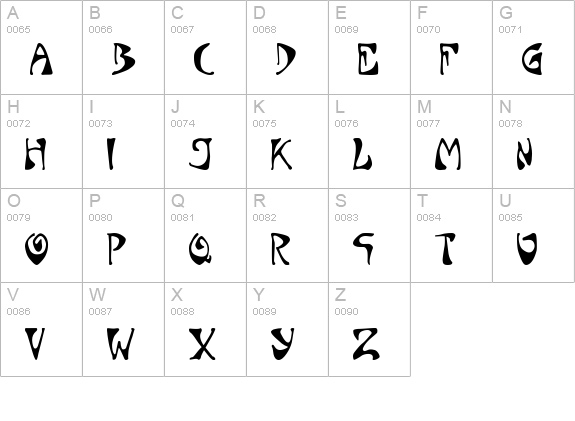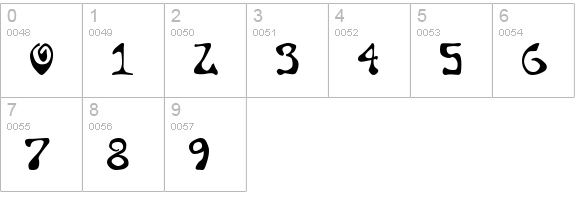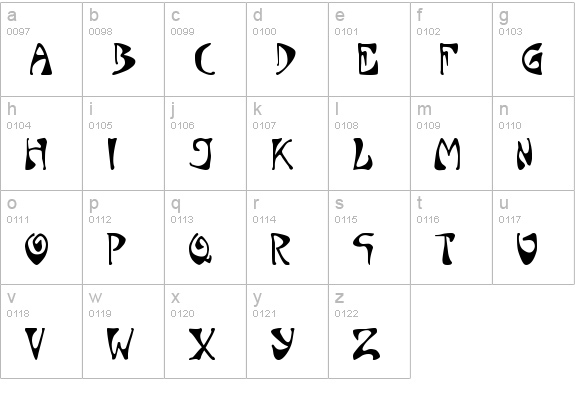
Groovies Normal Font Details
Groovies Normal is the standard, neutral variant in the Groovies typeface family \xE2\x80\x94 well suited to general body text, paragraphs, and standard typographic work.
Groovies Normal font is a versatile and modern typeface that exudes a sense of playfulness and creativity. With its clean lines and rounded edges, this font is perfect for a wide range of design projects, from branding to social media graphics. The balanced letterforms make it easy to read both in print and on screen, making it a great choice for both digital and physical applications. One of the best features of Groovies Normal font is that it is completely free to download. You can easily access this font on FontsMarket.com, where you can find a wide selection of high-quality fonts for all your design needs. Whether you're a graphic designer, web developer, or just someone looking to add a touch of fun to your projects, Groovies Normal font is sure to be a valuable addition to your font library. Download it today and let your creativity shine!